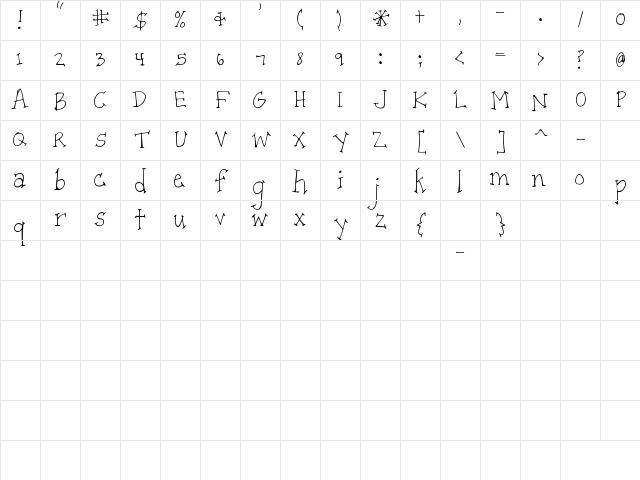
Patient Paige Regular
Designer: Kimberly Geswein
Design Context for Patient Paige
Patient Paige is a composed and adaptable typeface that performs quietly and consistently across a wide range of design contexts.
Pro Tip: Use Patient Paige in both headline and body roles to test its range before committing to a single application.